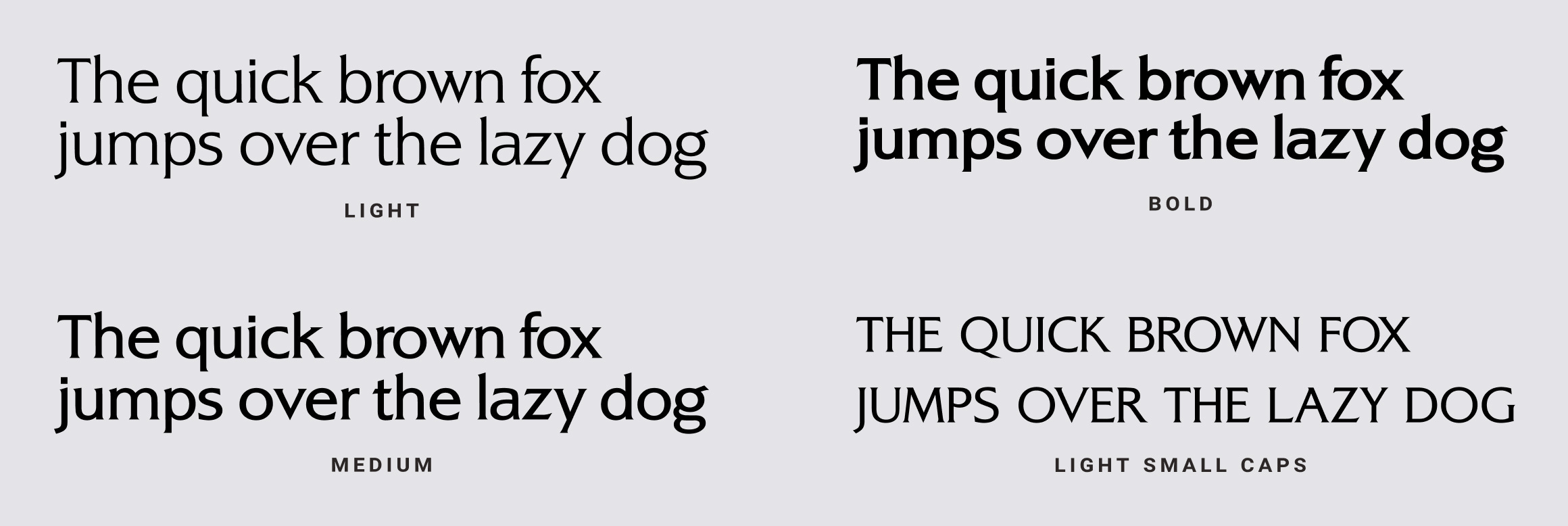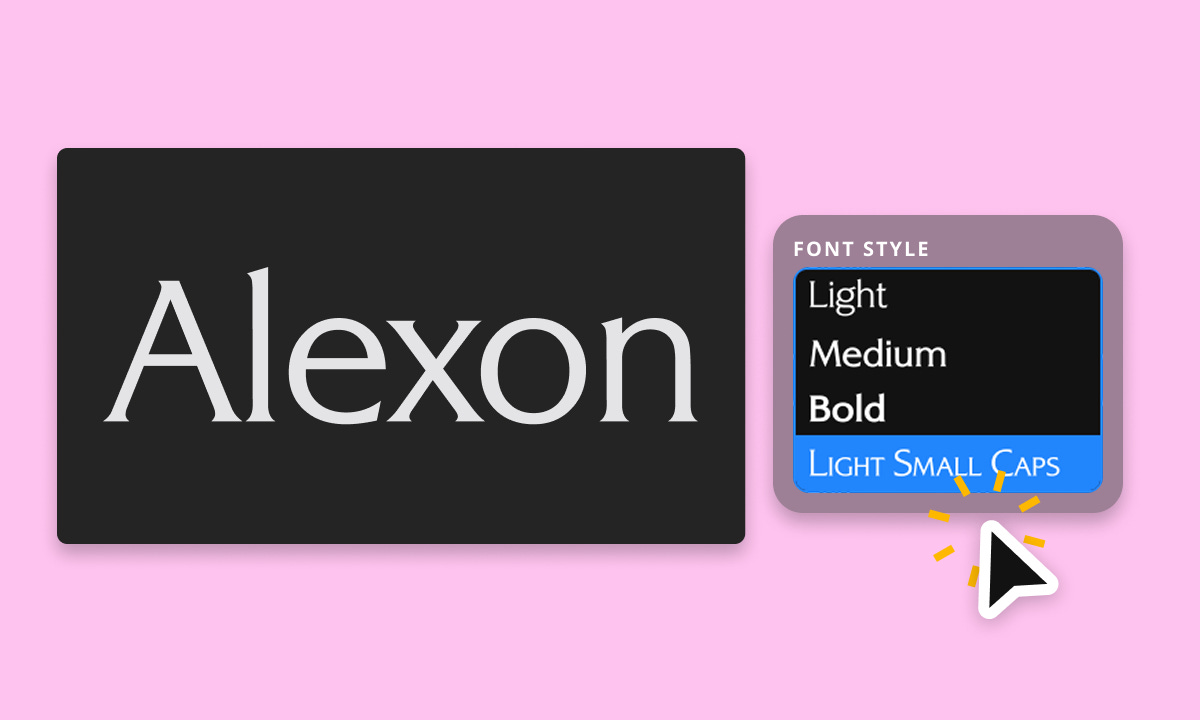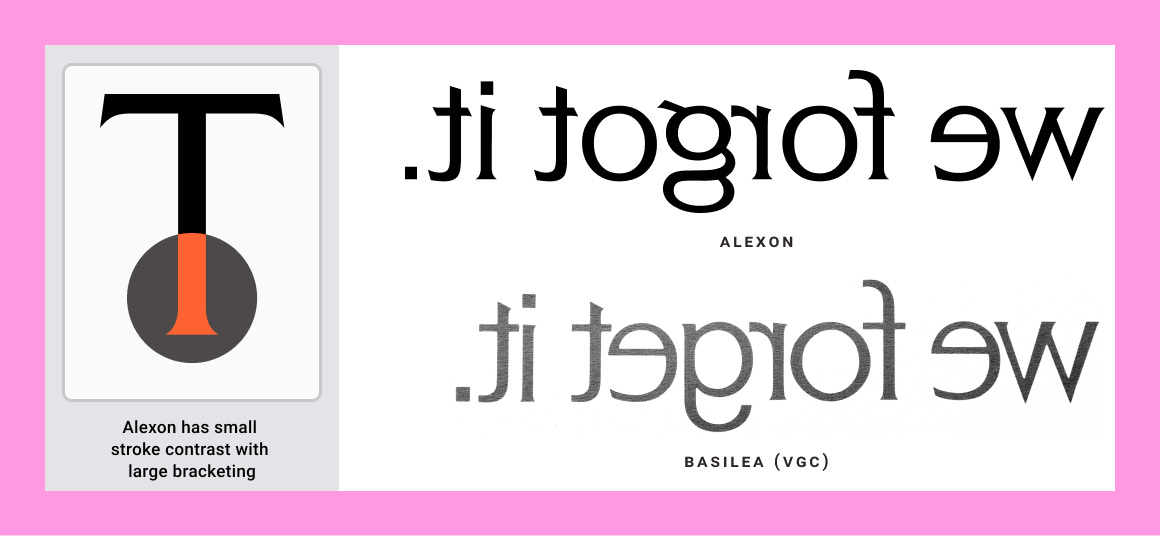
Hope you are having a wonderful week! Welcome to another week of FontDiscovery! This week, we are talking about Alexon, a unique serif with large bracketing. Read more below. 👇
About Alexon
Alexon is a classic serif typeface with a clean, confident voice — ideal for settings where clarity and authority take center stage. Formal yet versatile, it lends elegance without distraction. With crisp serifs and refined proportions, Alexon shines in professional design contexts — from magazine mastheads to medical journals to brand identities that value tradition and trust. It includes multiple weights that maintain excellent readability across sizes, offering both utility and polish.
Type Details
Available in: Light, Medium, Bold, and Light Small Caps style
Large bracketing
Inspired by the typeface Basilea
Alexon is available in Light, Medium, Bold, and a dedicated Light Small Caps style. Its standout feature is the beautifully proportioned small caps, which add a sense of elegance and visual harmony while improving readability, perfect for all-caps applications like titles, labels, subheads, or capitalized text within paragraphs.
Behind the Typeface
Originally designed by Les Usherwood, Alexon was later expanded and digitized by Steve Jackaman in 1992. Its roots trace back to Basilea, a 1965 award-winning design by Markus J. Low. While Basilea brought a modern sharpness to the serif category, Alexon continues that legacy with subtle strength and composure. It’s a timeless choice for when you want to speak with clarity, credibility, and grace.
Using Alexon for Design & Typography
Alexon is a refined serif that brings clarity and authority to your typography design, making any layout feel instantly classic. With its crisp serifs, balanced proportions, and beautifully crafted small caps, it’s ideal for titles, subheads, and capitalized text that need a touch of elegance without sacrificing readability. Its dedicated Light Small Caps style adds visual harmony to all-caps settings.